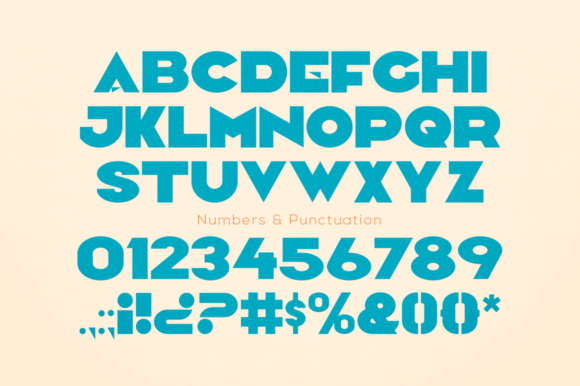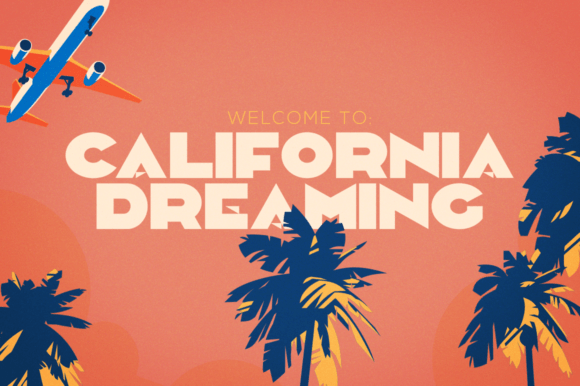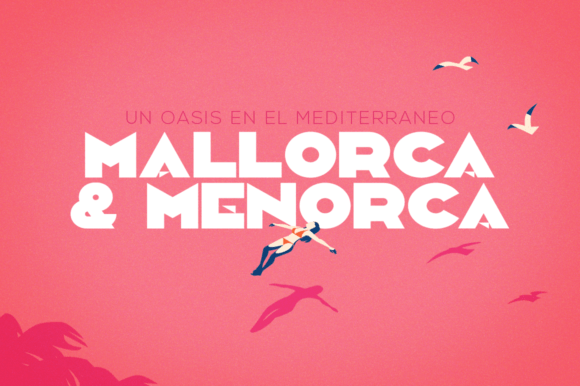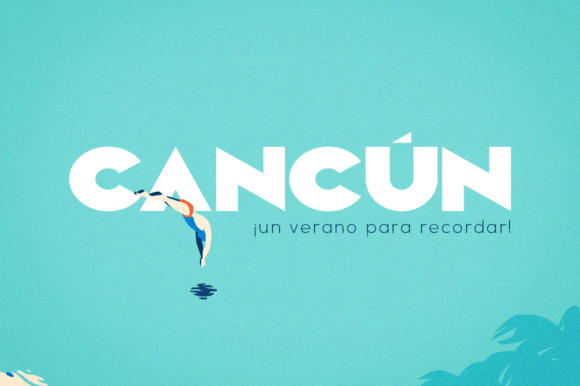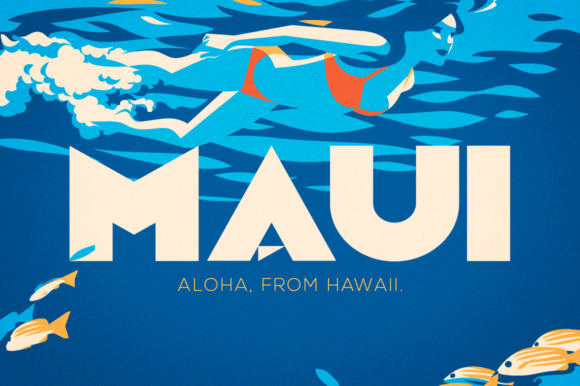
The Perfect Display Font for Your Next Design Project
As a designer, there’s nothing quite like that moment when an idea suddenly sparks and you can’t wait to bring it to life. You grab your favorite font, and in this case, it’s the Camar Font – a bold, clean, and simple display font that’s just begging to be used. Its decorative style and all-caps design make it the perfect choice for giving short words a strong and striking look.
The Camar Font is more than just a pretty face; it’s a valuable tool in a designer’s arsenal. With its versatility and impact, it’s the perfect addition to any design project. Whether you’re creating a bold logo, a striking headline, or a eye-catching social media post, the Camar Font is sure to make a lasting impression. And with its clean and simple design, it’s easy to use and customize to fit your unique vision.
Camar Font Key Features
- Font Family: Camar Font is a sans-serif typeface designed for digital use.
- Size: The font family includes multiple weights, ranging from Thin (100) to Extra Bold (900), allowing for versatility in design applications.
- Resolution: Optimized for high-resolution displays, making it suitable for use on modern devices and screens.
- Unique Characteristics: Camar Font features a clean, modern design with subtle rounded edges, giving it a friendly and approachable feel.
- Font Pairing: Designed to work well with a variety of other sans-serif and serif fonts, making it an excellent choice for corporate branding and digital design projects.
Camar Font Review
Initially, I was excited to dive into Camar Font, but my experience was a mixed bag. Let’s start with the positives: ✨ the font’s unique blend of modern and vintage elements is certainly eye-catching. The bold weights are particularly well-suited for headings, and the font’s versatility makes it a great choice for a wide range of applications.
One of the standout features of Camar Font is its excellent legibility, even at smaller font sizes. This makes it a great choice for body text, especially in digital applications where text is often small. Additionally, the font’s high x-height and open shapes make it easy to read for people with visual impairments.
- ⚠️ Limited language support: While Camar Font includes a decent range of languages, it’s not comprehensive, and you may find some characters missing or substituted.
- ⚠️ Limited font sizes: While the bold weights are great, the font’s thinner weights can appear too light at smaller font sizes.
- ⚠️ Limited compatibility: Camar Font may not be compatible with all operating systems or devices, which could lead to issues with text rendering.
Overall, Camar Font is a solid choice for designers looking for a unique, modern font. While it’s not perfect, its strengths outweigh its limitations, and with some careful consideration, it can be a great addition to your design toolkit.
Camar Font is ideal for:
- Designing modern and minimalist logos.
- Creating stylish and elegant typography.
- Adding a touch of sophistication to digital products.
Tips for Getting the Most Out of Camar Font
To get the most out of Camar Font, remember:
- To pair it with clean and simple backgrounds.
- To use it in combination with bold and geometric shapes.
- To experiment with different font sizes and styles.
Alternatives to Camar Font
Camar Font is a popular font known for its modern and elegant design. However, if you’re looking for alternatives, here are a few options:
Montserrat is a sans-serif font designed by Julieta Ulanovsky. It’s a great alternative to Camar Font for titles and headings due to its geometric and modern design. Montserrat is more geometric and angular compared to Camar Font, making it perfect for urban and modern designs.
Lato is a sans-serif font designed by Łukasz Dziedzic. It’s a great alternative to Camar Font for body text and paragraphs due to its clean and legible design. Lato is more rounded and friendly compared to Camar Font, making it perfect for designs that require a softer and more approachable feel.